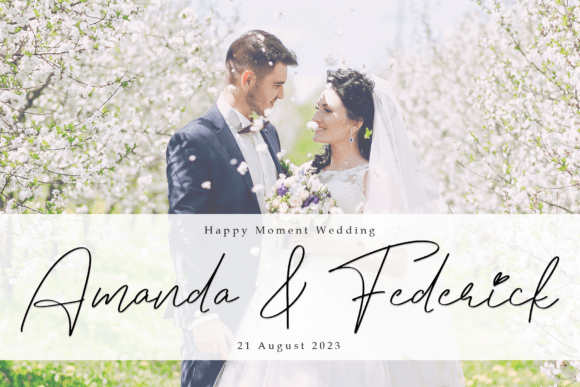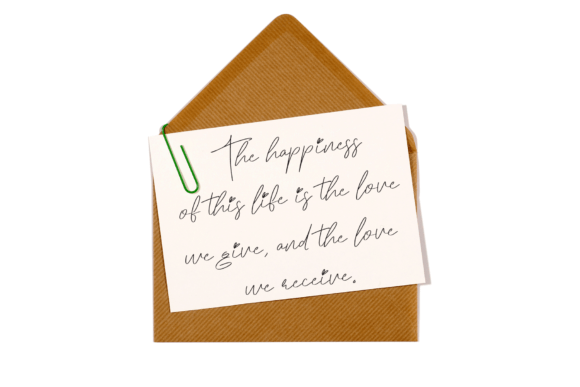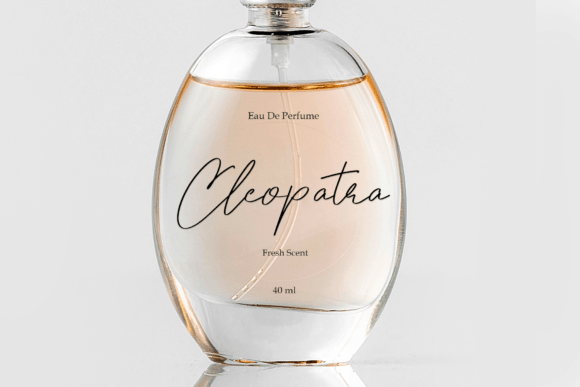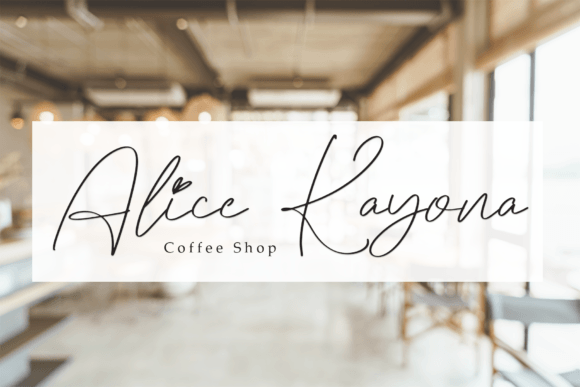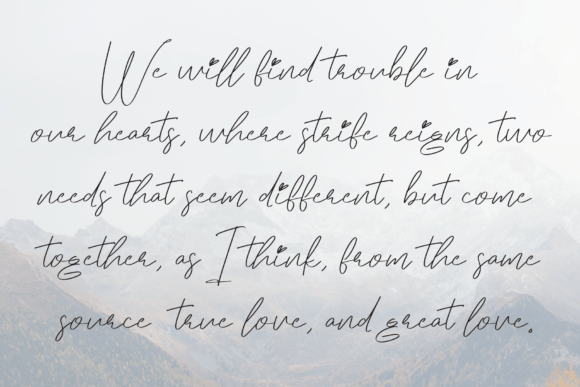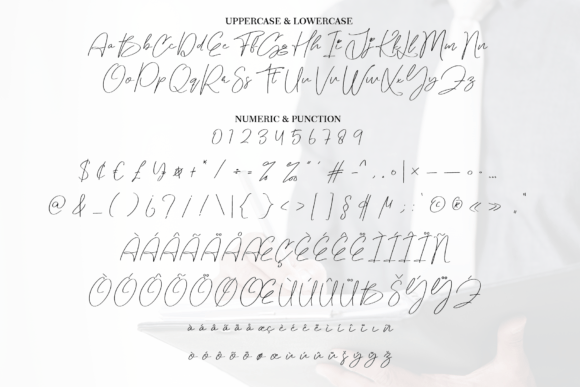
Introduction to Regulation Font
Do you remember that moment when you found the perfect font to match the tone of your creative project? For many designers, it’s a moment of pure joy and excitement. That’s exactly what we’re about to explore – a font that will capture the essence of romance and whimsy in your designs. Say hello to the enchanting Regulation Font, a beautiful italic handwritten font that will add a touch of love and charm to your text.
Whether you’re working on a wedding invitation, a heartfelt note, or a romantic graphic, the Regulation Font is an invaluable design resource that will bring a high-quality, elegant feel to your projects. Its distinctive heart-shaped accents on the “i” and “j” letters are a perfect example of what makes this font truly special. With a free download available, you can easily incorporate this design element into your creative projects and give them a transparent background that will make your words sparkle with love.
Key Features of Regulation Font
- High-quality design resource suitable for various creative projects, including digital art, graphics, and web design.
- Designed with a focus on readability and legibility, ensuring that text remains clear and easy to read across different sizes and resolutions.
Honest Review: Regulation Font
I recently stumbled upon the Regulation Font, and I’m excited to share my honest thoughts on this design resource. As a designer, I’m always on the lookout for high-quality fonts that can elevate my creative projects. The Regulation Font does just that.
- ✨ The font’s clean and modern aesthetic makes it perfect for a wide range of creative projects, from brochures to digital interfaces.
- ⚠️ The font selection is limited, with only a few styles to choose from. This might not be ideal for designers who need a wide range of font options.
- ⚠️ The font may not be suitable for large-scale print projects, as the quality can become pixelated at high resolutions.
Overall, I’m impressed with the Regulation Font’s clean design and versatility. While it may not be perfect for every project, it’s definitely a high-quality design resource worth considering for your next creative endeavor.
How to Use Regulation Font
Tips for Getting the Most Out of Regulation Font
For optimal results, use the Regulation Font in conjunction with a clear and concise design strategy. Experiment with different font sizes and styles to create a visually appealing hierarchy.